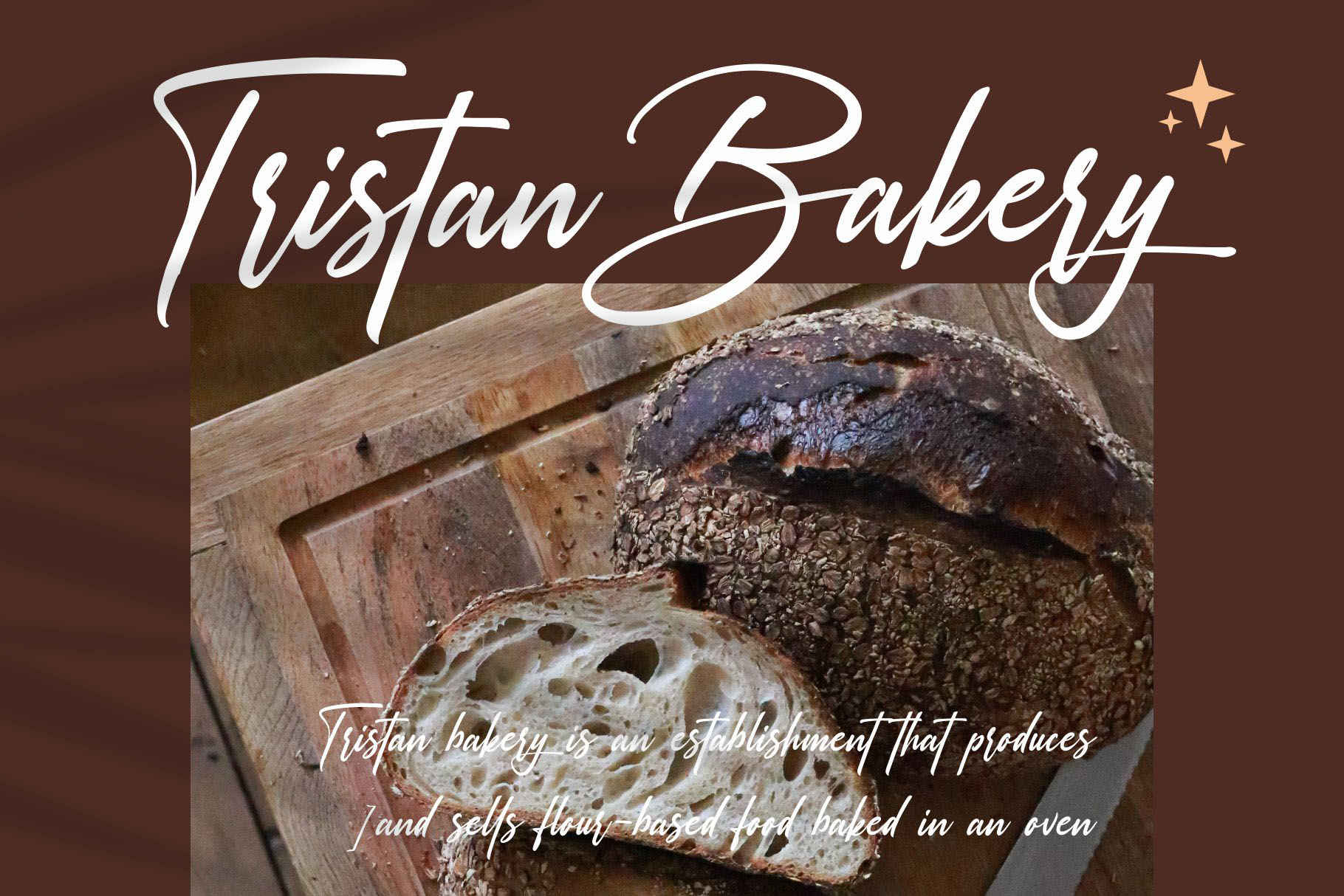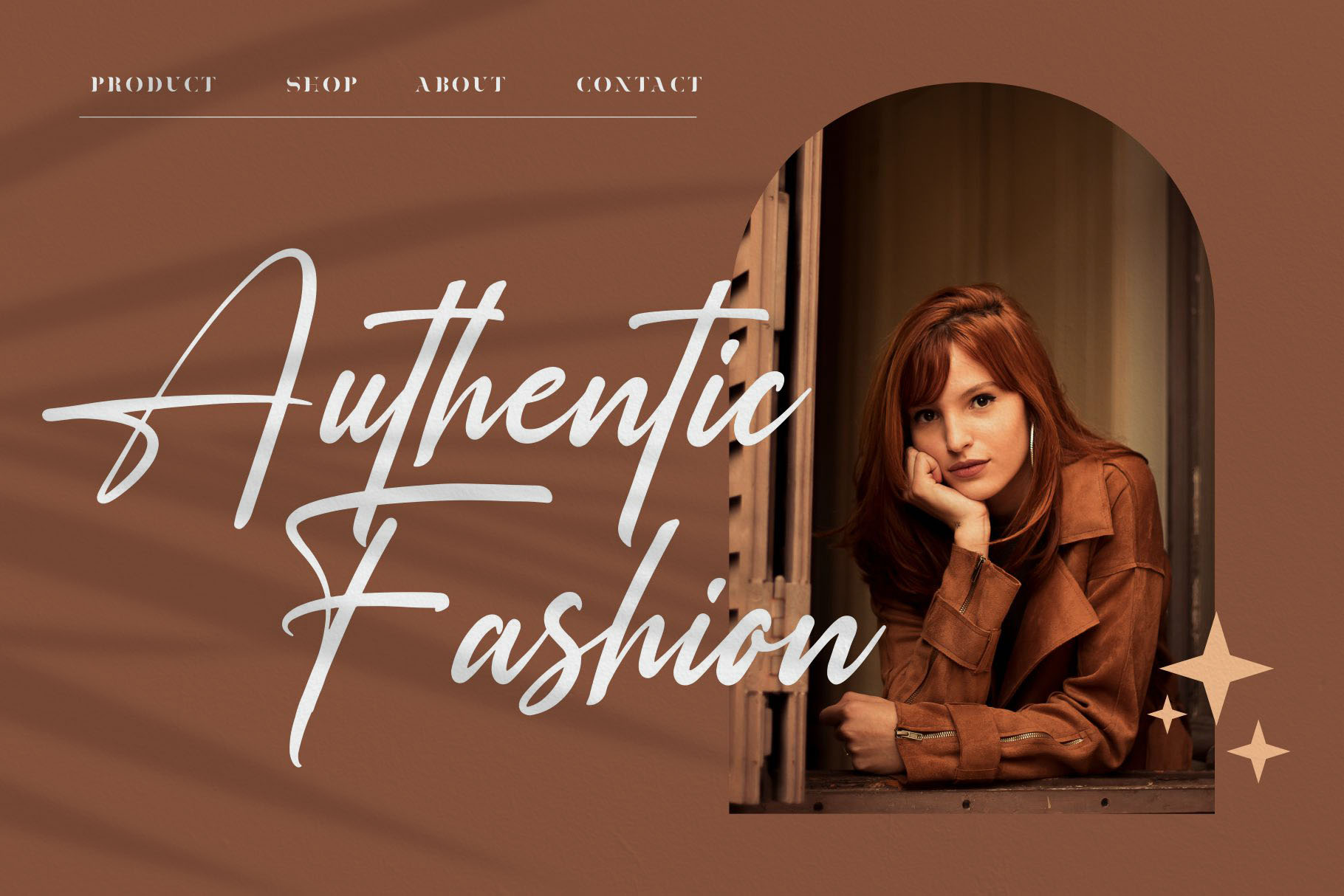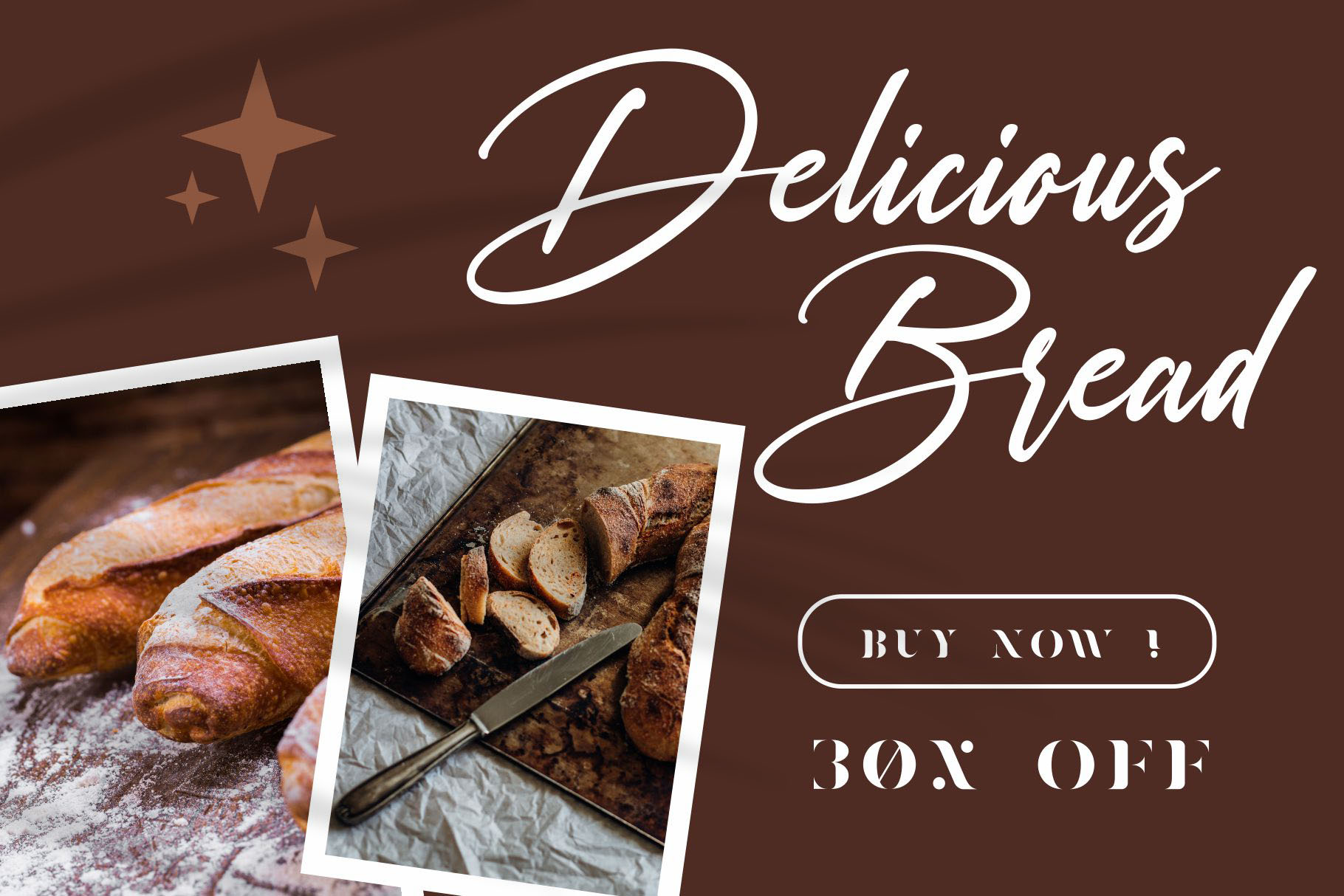
Rosellinda Alyamore Font
Rosellinda Alyamore Script Font
This font is perfect for creating signature logos and watermarks for photography studio or wedding invitation, Lable, Logo, Magazine best for initial or branding logo signature.